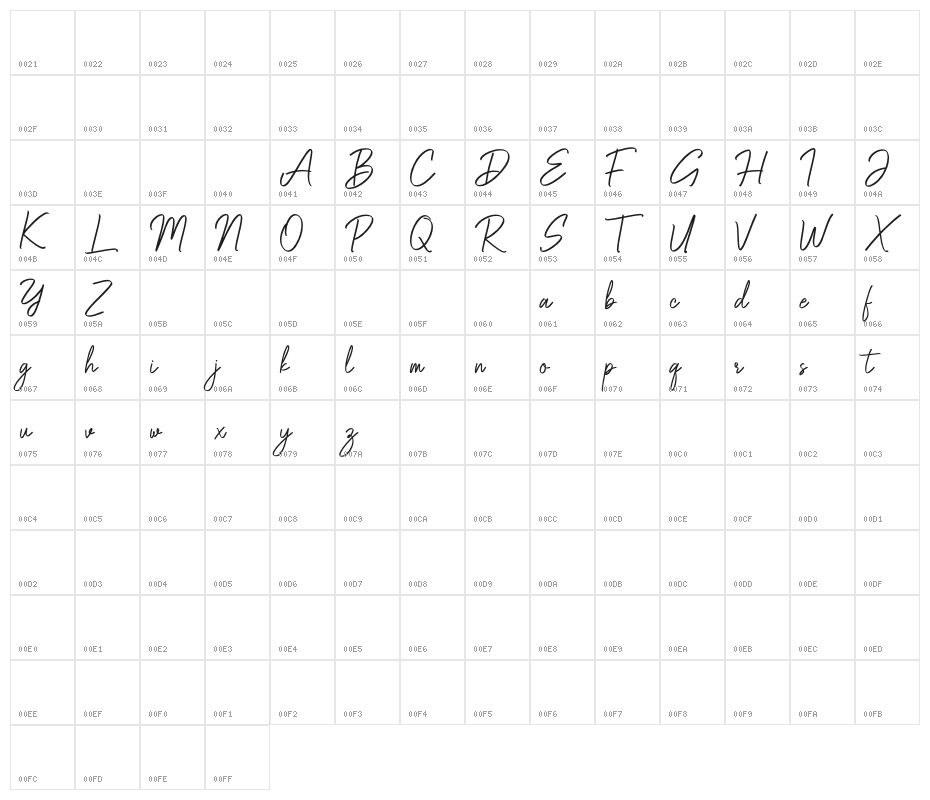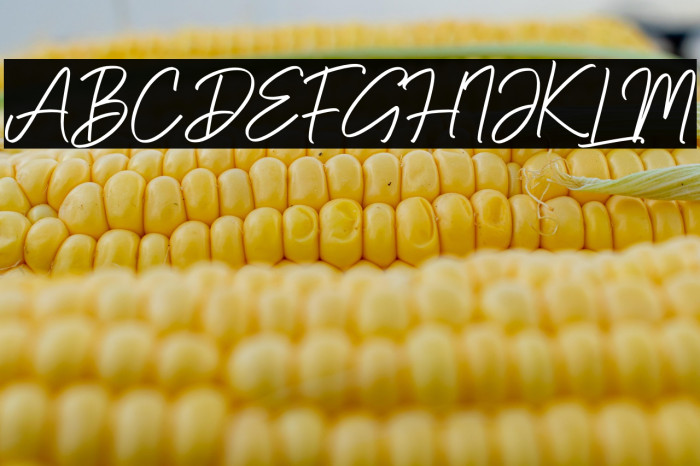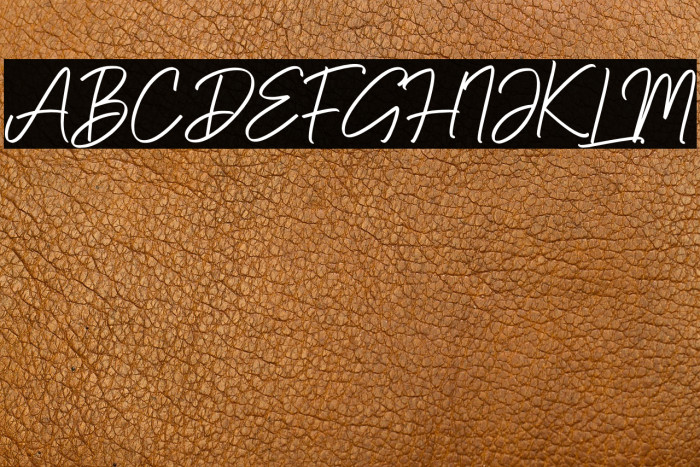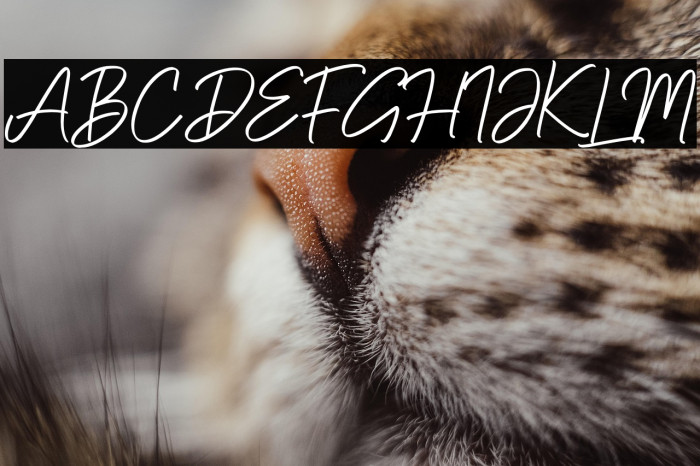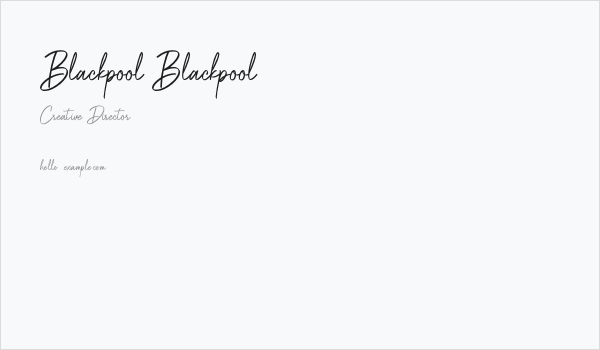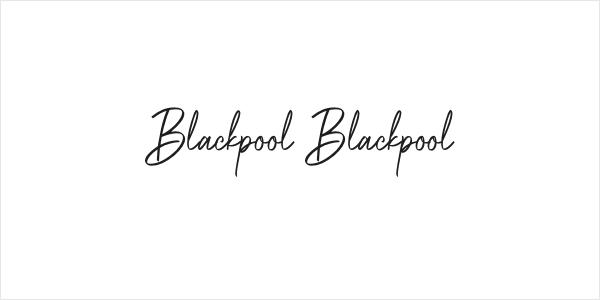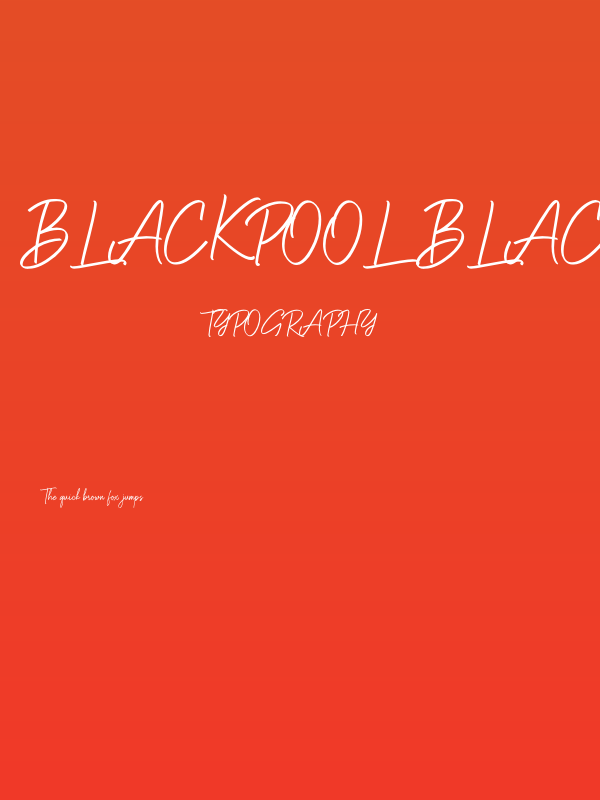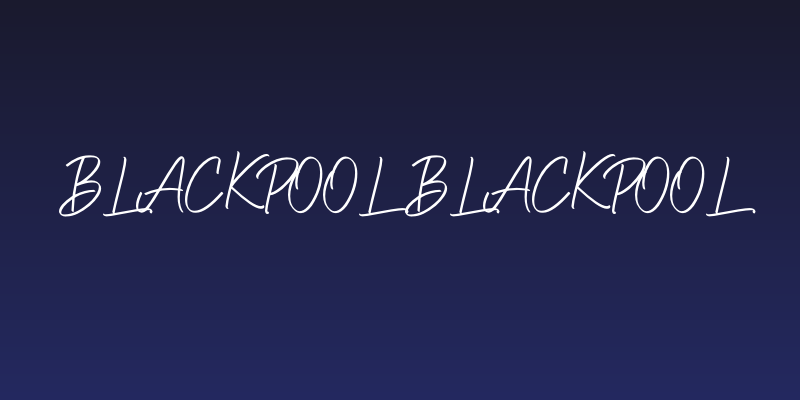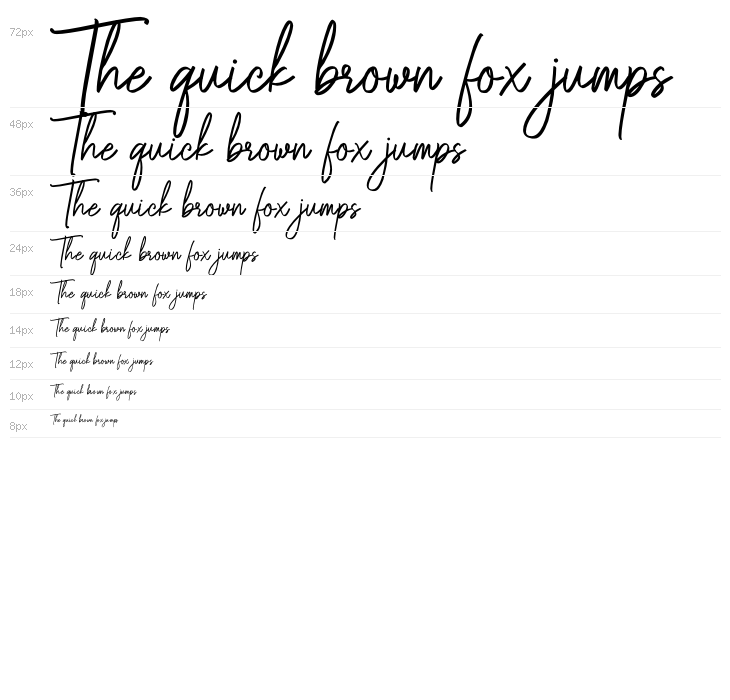
Blackpool Font
Blackpool Description
This font features a lively and dynamic script style, characterized by its fluid, cursive strokes that mimic natural handwriting. The uppercase letters are bold and slightly slanted, giving a sense of movement and elegance. The lowercase letters maintain a consistent flow, with some letters connecting seamlessly to others, enhancing the handwritten feel. The overall appearance is both sophisticated and approachable, making it suitable for a variety of design contexts. The font's playful yet refined nature makes it ideal for projects that require a personal touch.